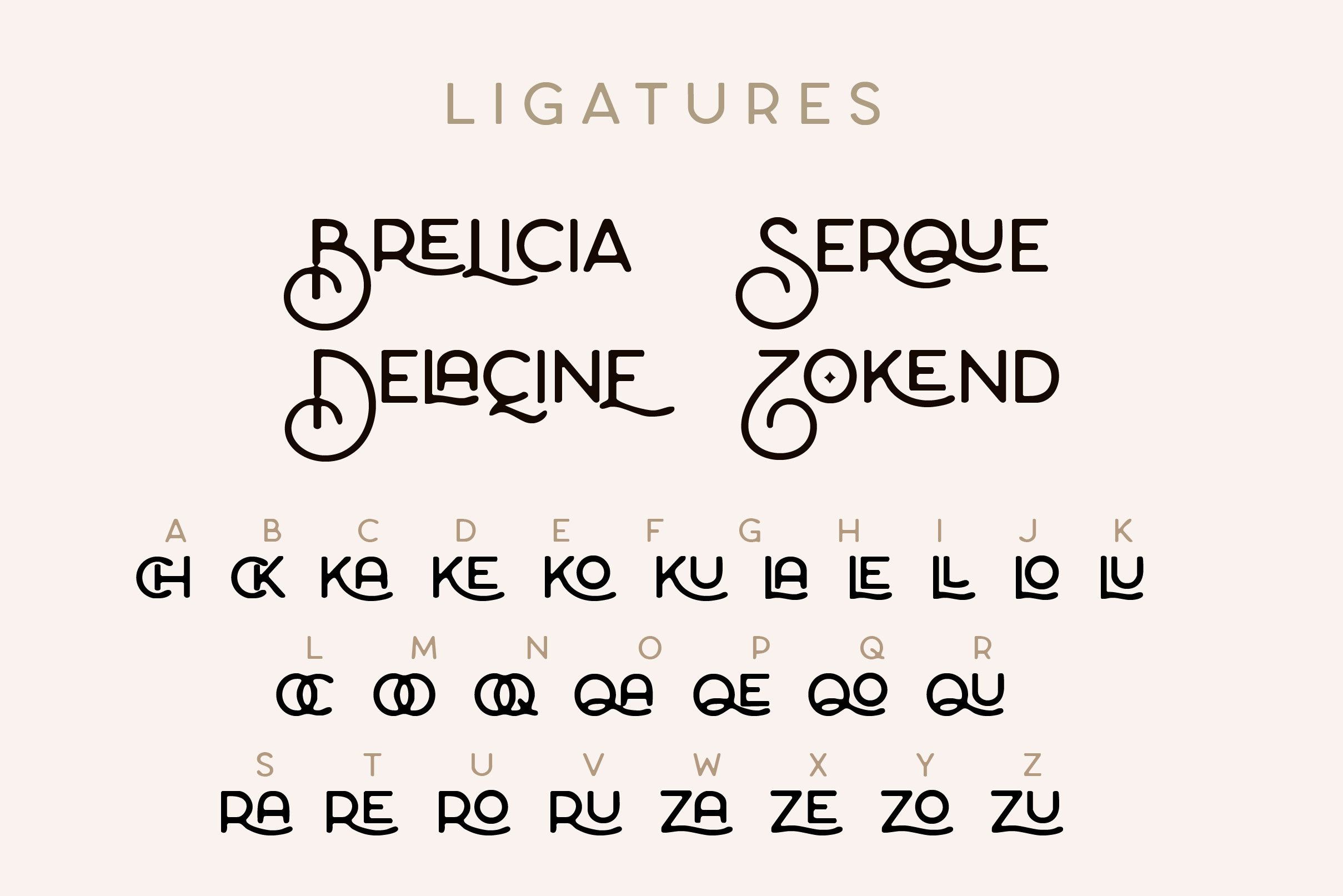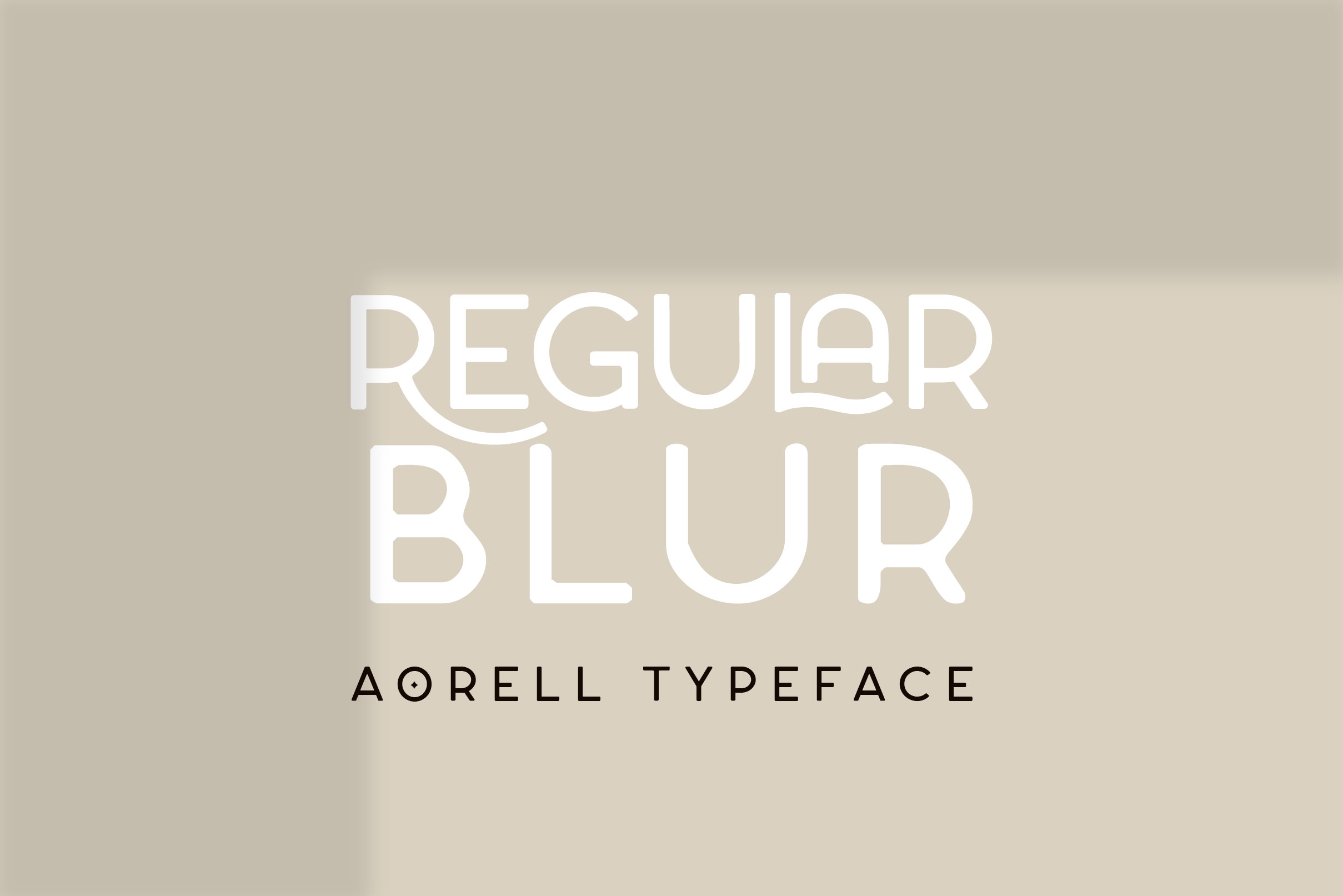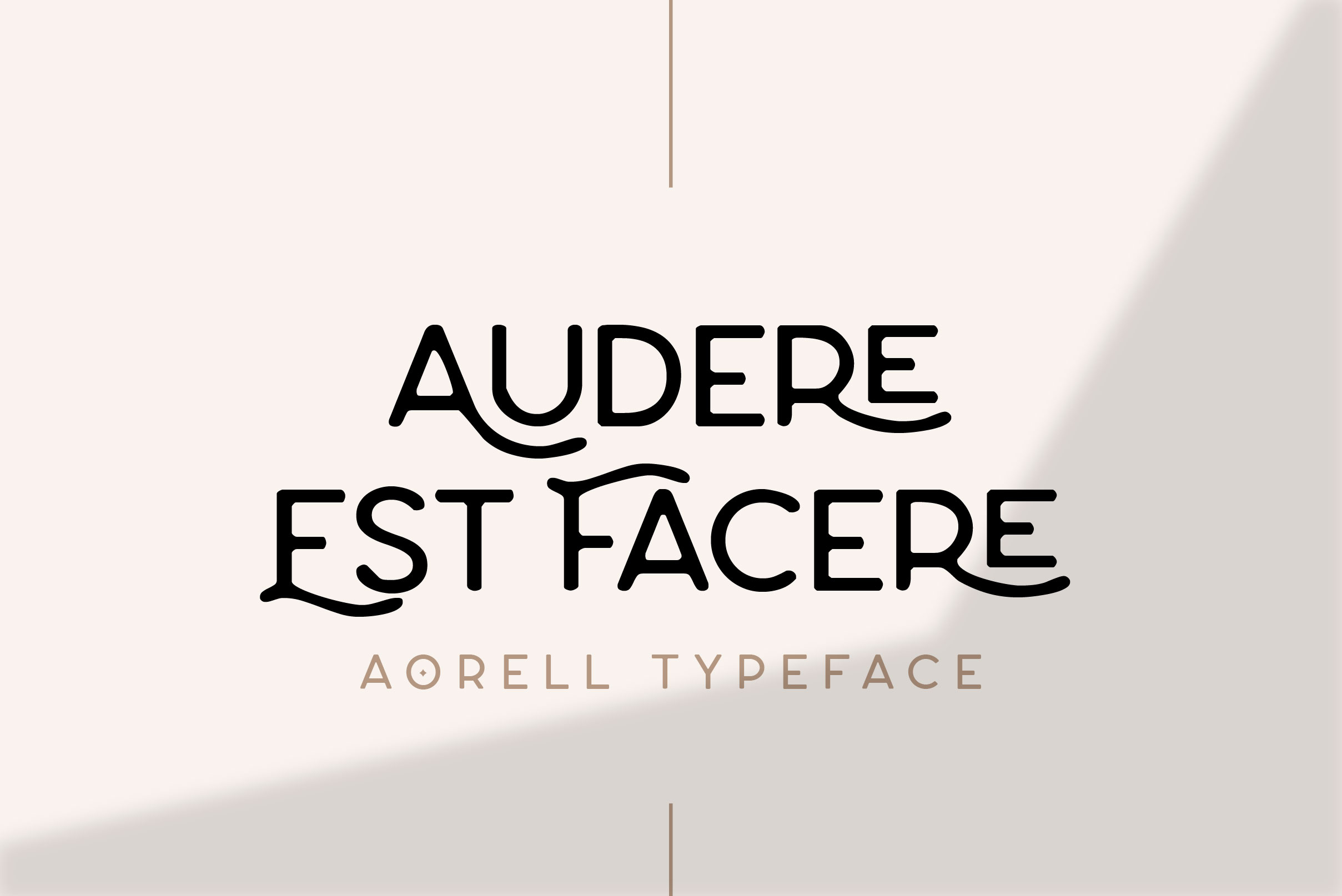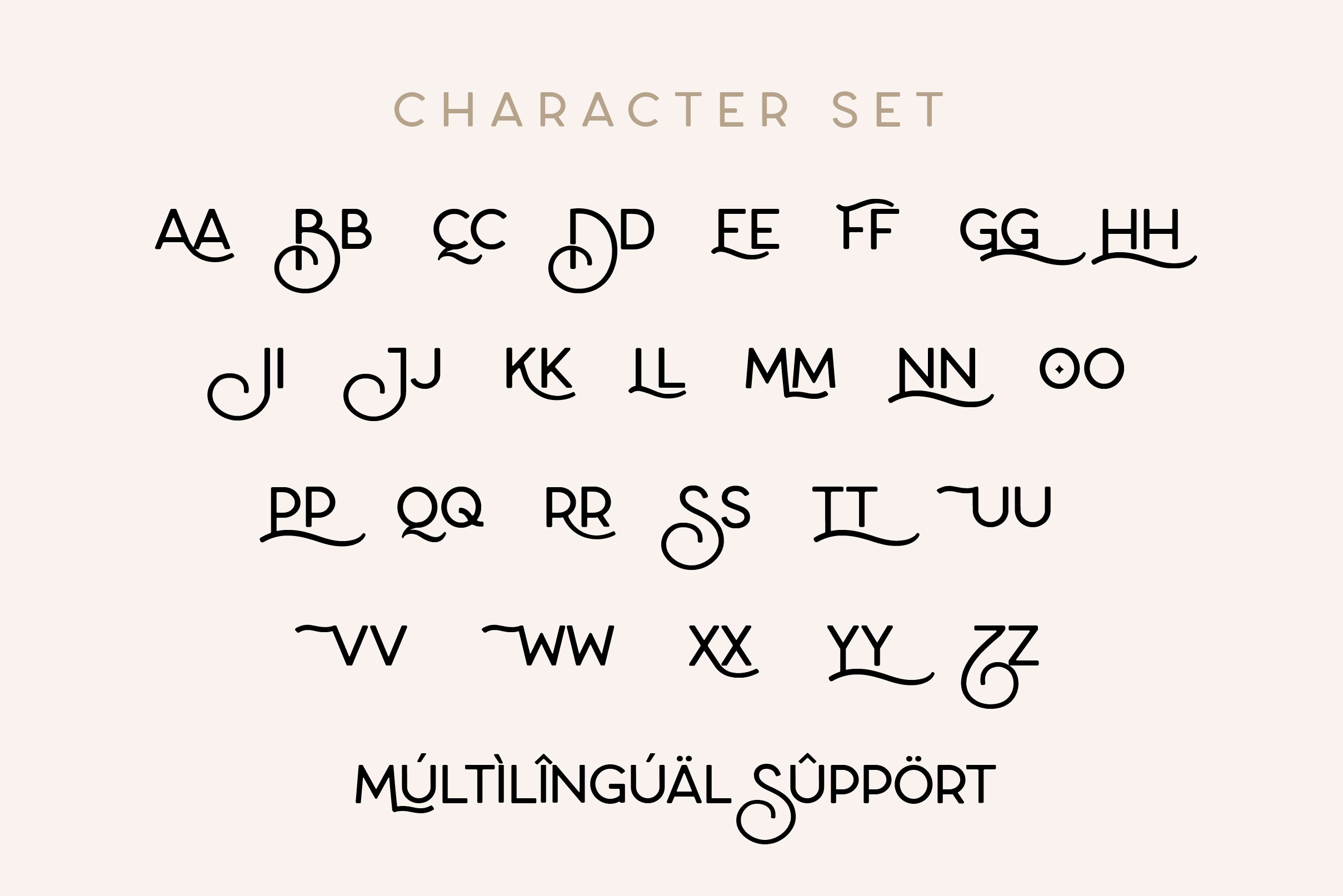
Aorell Font
Aorell Sans Serif Font is a modern sans serif font. It features a classy style that makes it perfect for branding, logos, magazines, flyers, social media posts and more!
– Uppercase, Lowercase, Numeral & Punctuation
– Alternate Letters, Ligature & Swash/Tail